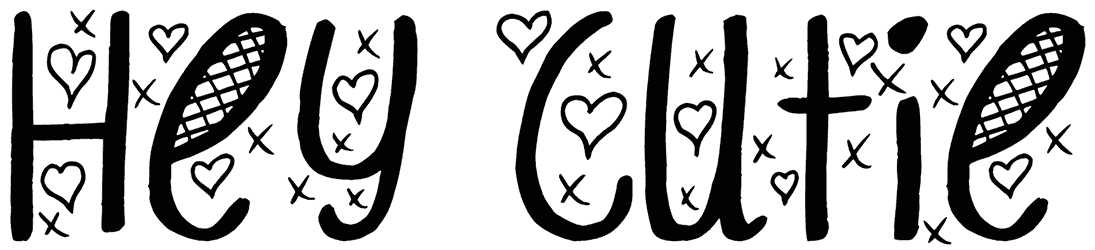
Hey Cutie Font
Be quick to reset your plain boring style, and play up with this real-time chance to get the successful concept of designing many romantic texts, quotes, social media posts, or even print-on girl T-shirts.
As a magic bullet, Hey Cutie, with its pretty floral pattern, smartly comes to push numerous fresh artworks. A new sort of action is here, in stock of Resource Boy inventory, just hit this doodle font and see how it sounds good.